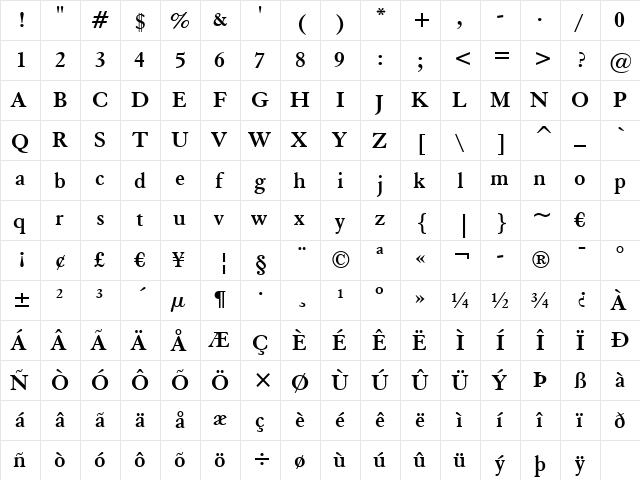
ElegaGarmnd BT Bold
Design Context for ElegaGarmnd BT Typeface
ElegaGarmnd BT is a composed and adaptable typeface that performs quietly and consistently across a wide range of design contexts. Its bold stroke weight gives it real presence on the page.